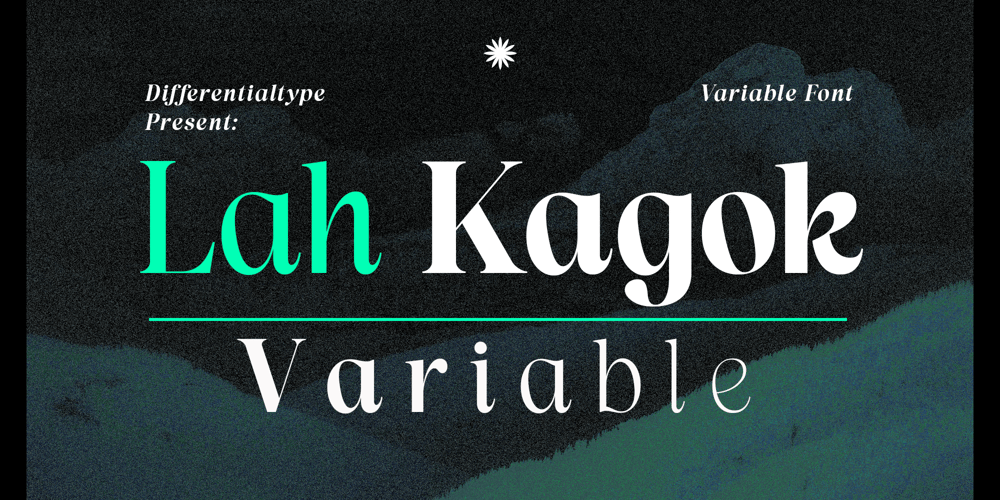
Lah Kagok Variable Font Family was designed by Sidik Sidik and published by Differentialtype. Lah Kagok Variable contains 1 styles and family package options. Introducing Lah Kagok Variable – a lavish serif font steeped in elegance. Its lowercase characters adapt the unique grace of italic serif, a charm now identifiable in the upright style as well. Be it magnificent logos, dreamy wedding invitations, distinct project branding, attention-grabbing news headlines or sophisticated book covers, Lah Kagok Variable is the perfect partner to enrich your design.